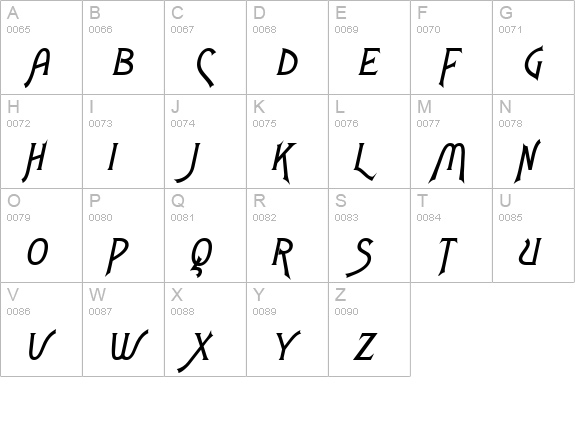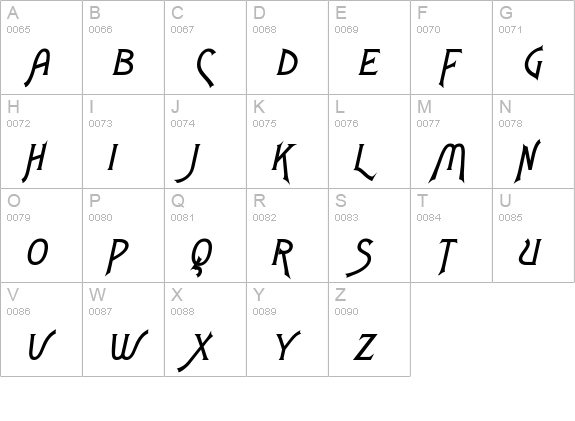
Fletch Extended BoldItalic Font Details
Fletch Extended BoldItalic is a distinctive, extended-width variant in the Fletch typeface family \xE2\x80\x94 well suited to design and typography projects.
Fletch Extended BoldItalic font is a modern and stylish typeface that exudes sophistication and elegance. Its bold and italic design adds a touch of flair to any project, making it perfect for headlines, titles, and other attention-grabbing text. The extended character set ensures versatility and readability across various applications. This font is not only visually striking but also versatile, making it suitable for a wide range of design projects. Whether you're creating a logo, poster, or website, Fletch Extended BoldItalic font will make your text stand out and leave a lasting impression. Best of all, Fletch Extended BoldItalic font is available for free download at FontsMarket.com. Don't miss out on this opportunity to enhance your designs with this stunning font at no cost. Download it today and elevate your projects with the timeless charm of Fletch Extended BoldItalic font.